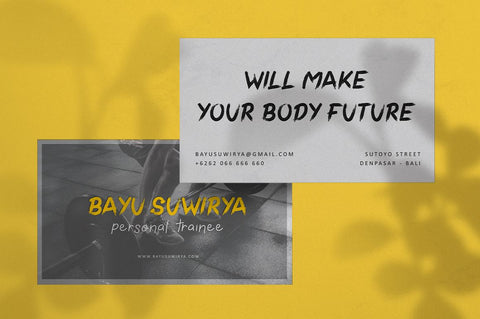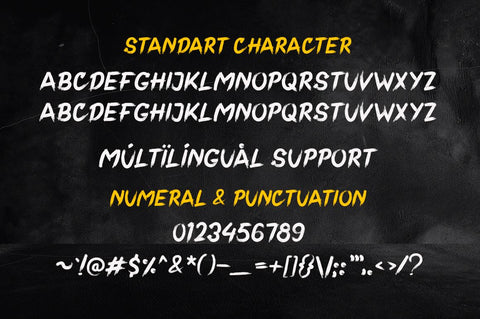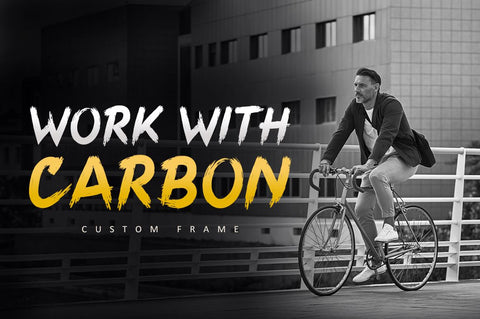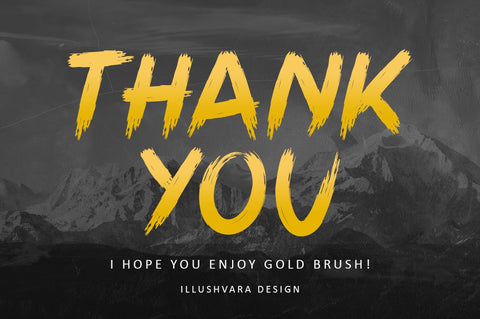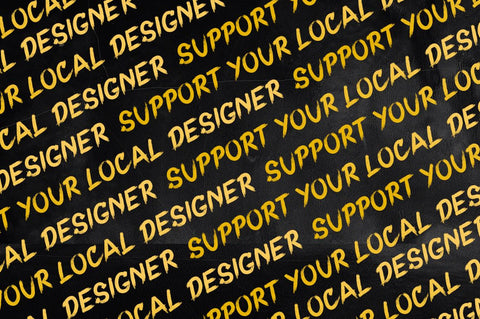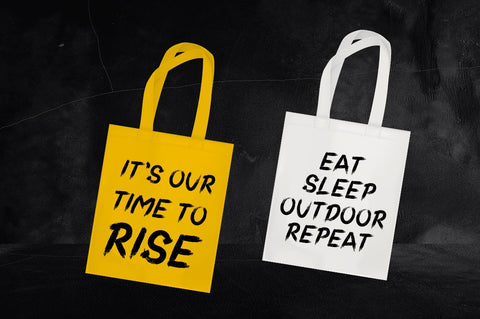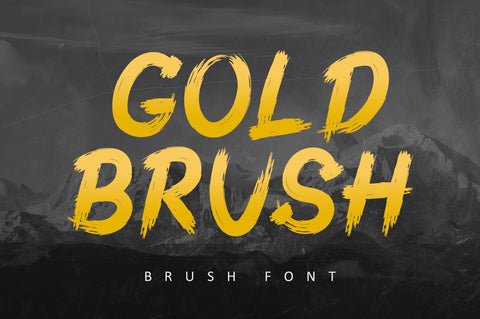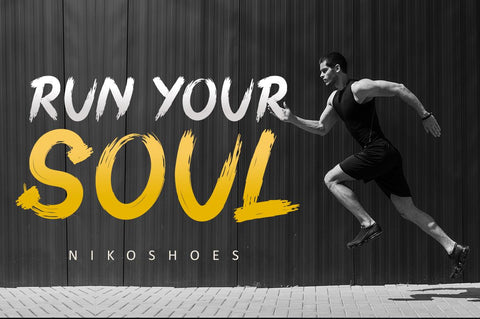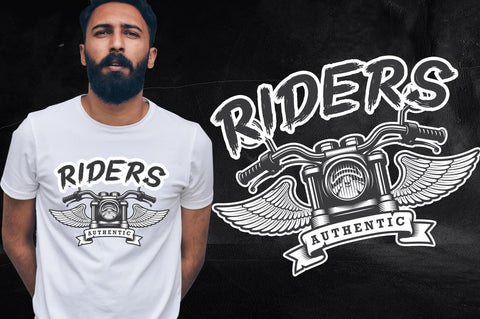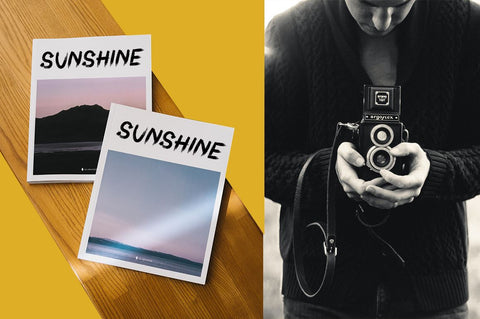
Gold Brush - Best Brush Font
Gold Brush is a bold brushed display font. Its assertive and dramatic style makes this font a good fit for creating logos, branding, posters, and crafty DIY projects.